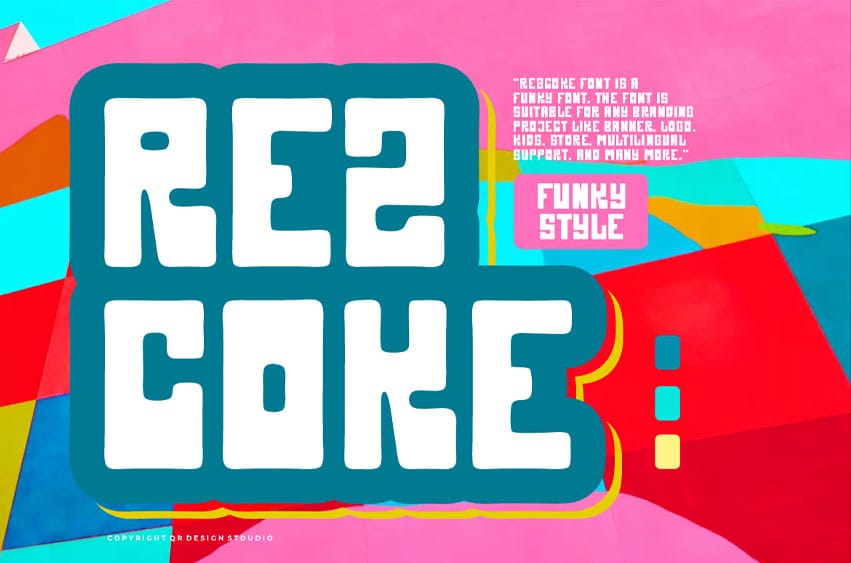
Rezcoke Font is a funky and authentic display font. The font is suitable for any branding project like posters, logos, sports, and many more.
Outstanding in a wide range of contexts.